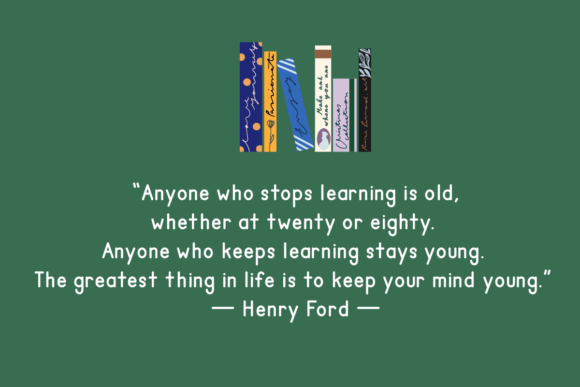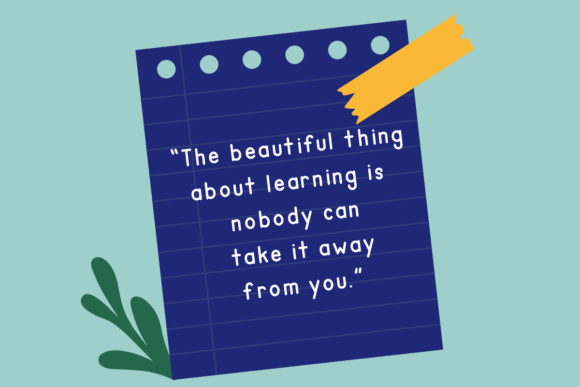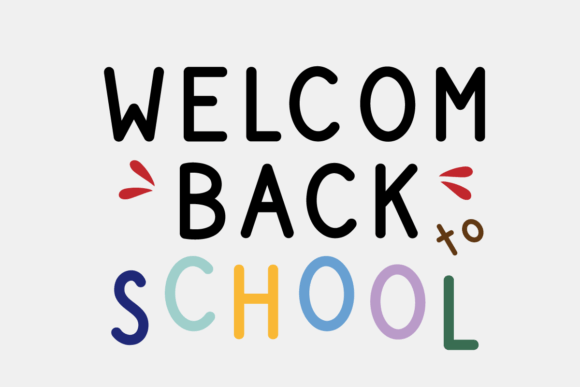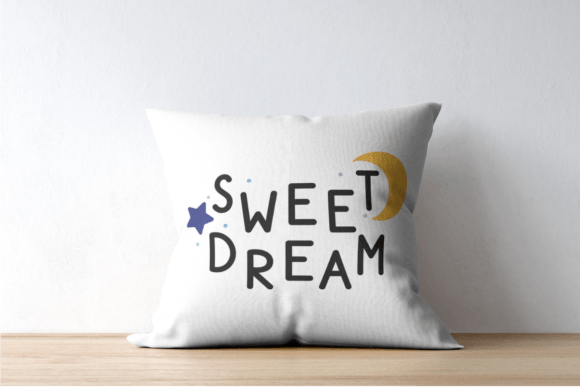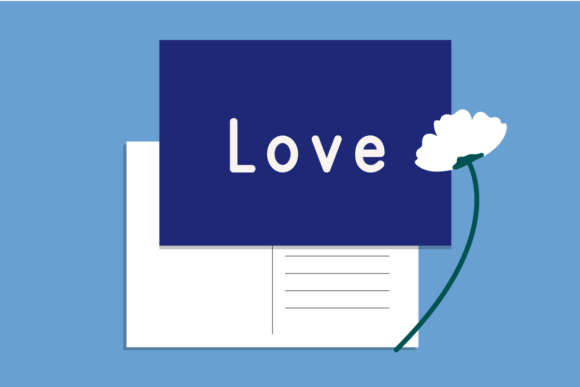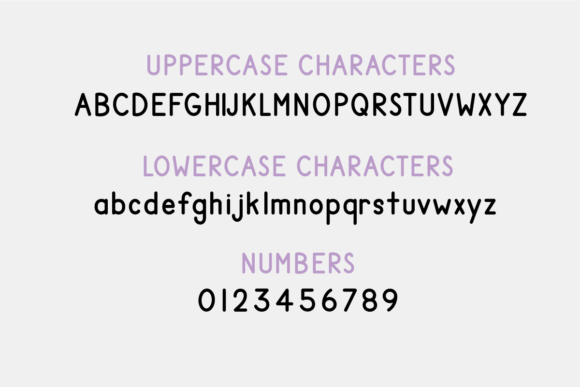
Introduction to Hit the Books Font Font
Fonts play a crucial role in design, and the Hit the Books Font font is a typeface that brings both character and versatility to any project. Whether you’re working on a branding project, a website, or a print design, the Hit the Books Font font offers a unique style that can elevate your work.
HIit The Books is a lovely and neat handwriting font.
Perfect for everyday use such as writing diary or note, creating posters, logos, greeting cards, packaging, decorating the illustration and so much more .
Key Features of Hit the Books Font Font
Why Choose Hit the Books Font Font?
The Hit the Books Font font is more than just a typeface – it’s a design tool that helps you communicate your message with style and clarity. Its unique character set and versatile design make it suitable for a wide range of applications, from elegant invitations to bold headlines.
With its carefully crafted letterforms and balanced proportions, the Hit the Books Font font ensures readability and visual appeal across all mediums.
What makes Hit the Books Font font special?
The Hit the Books Font font stands out with its unique design, exceptional readability, and versatility across various design applications.